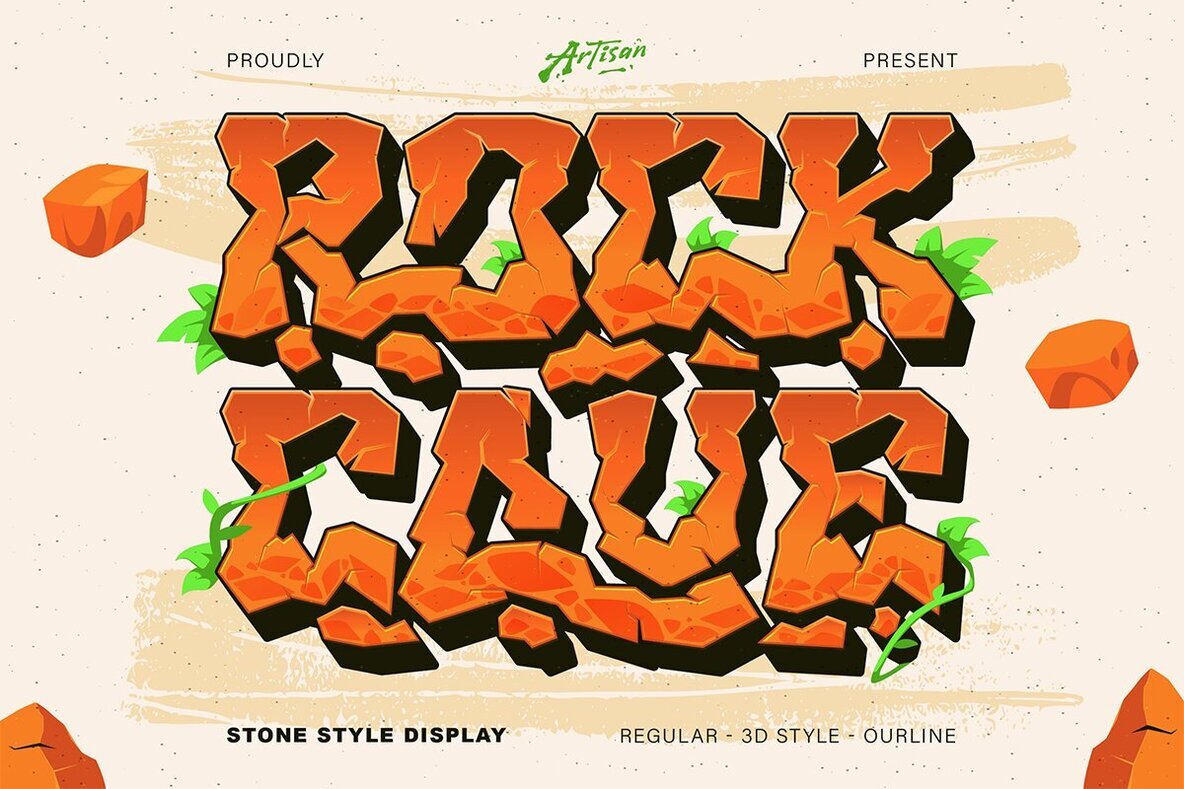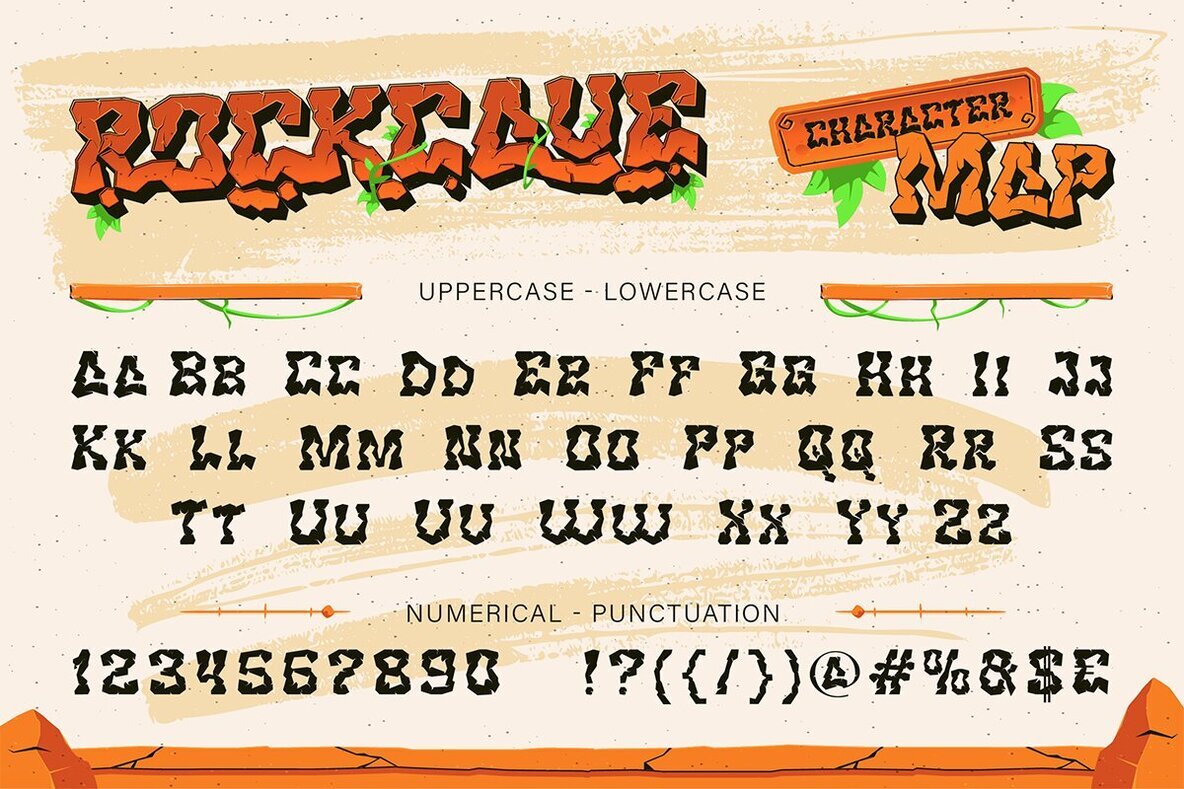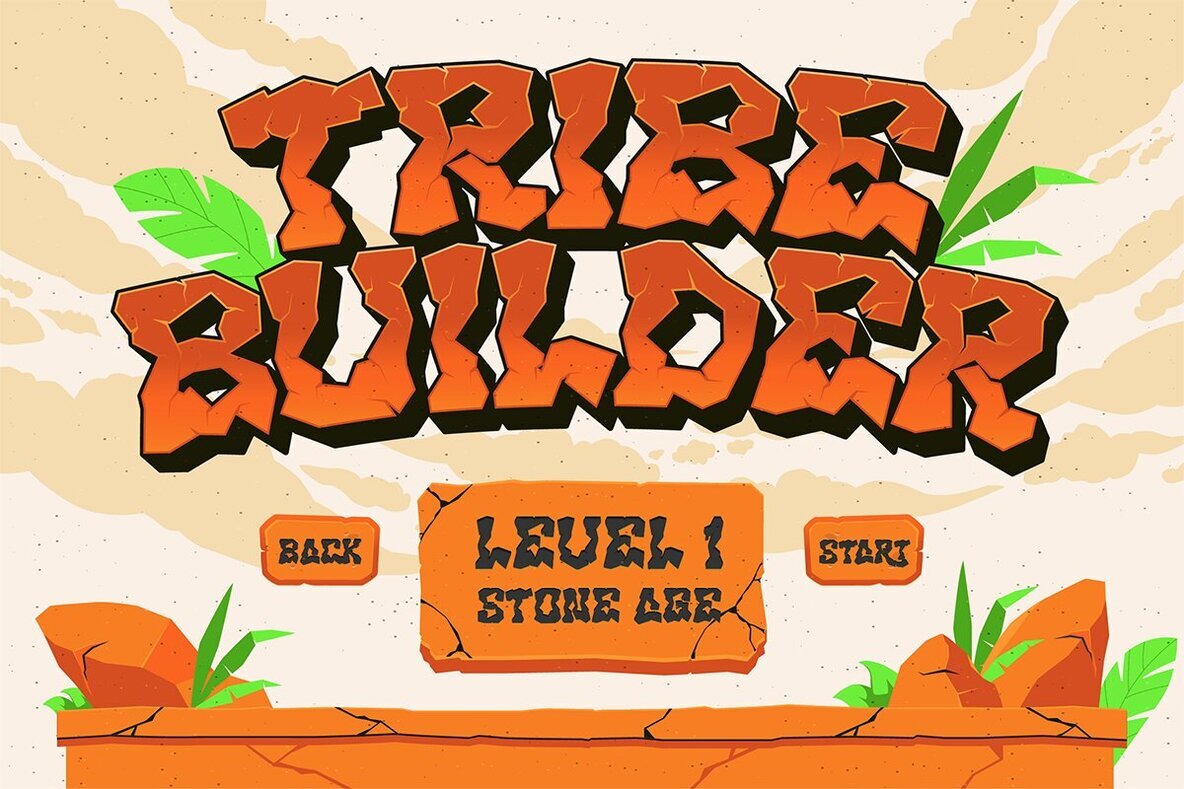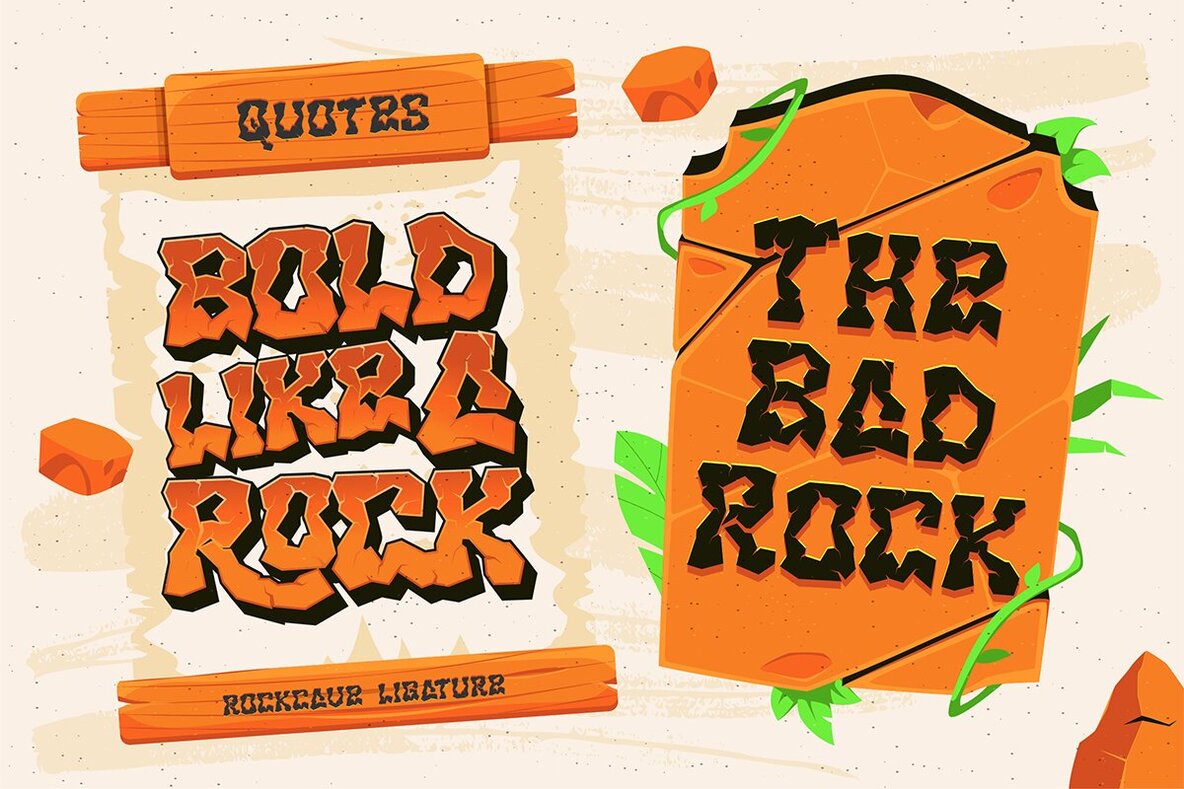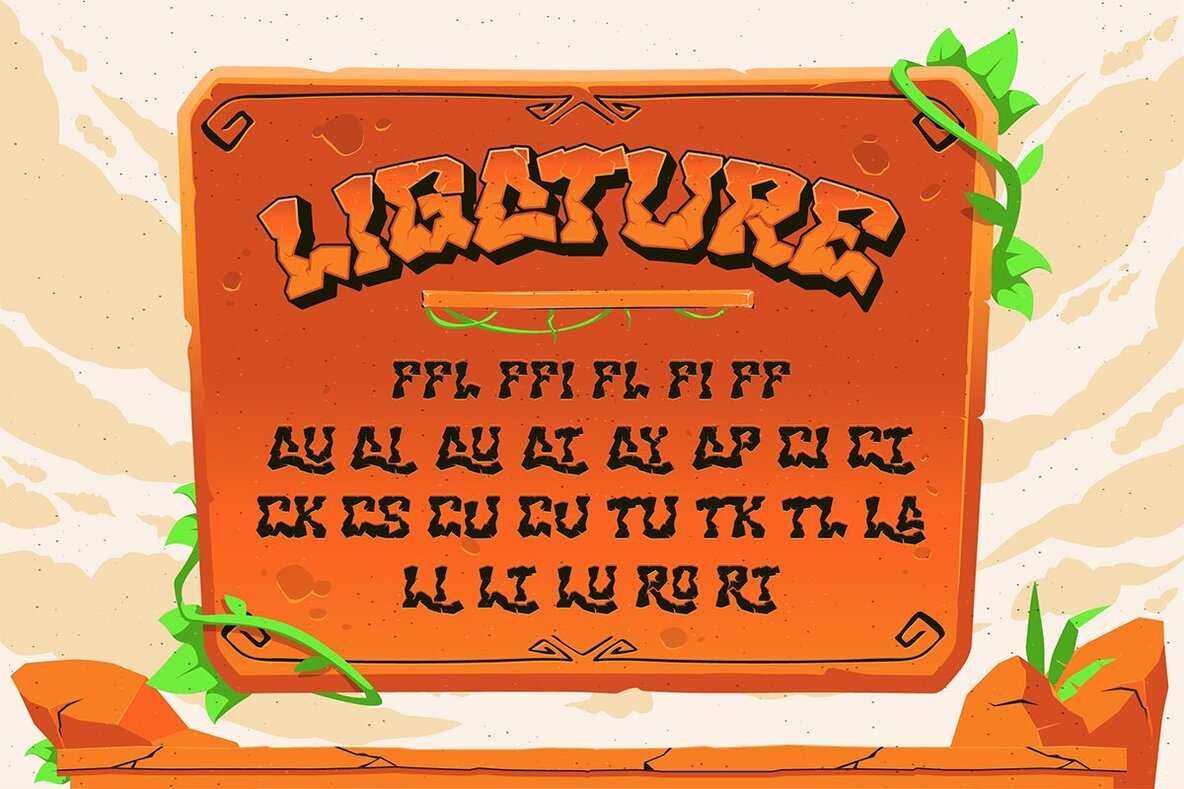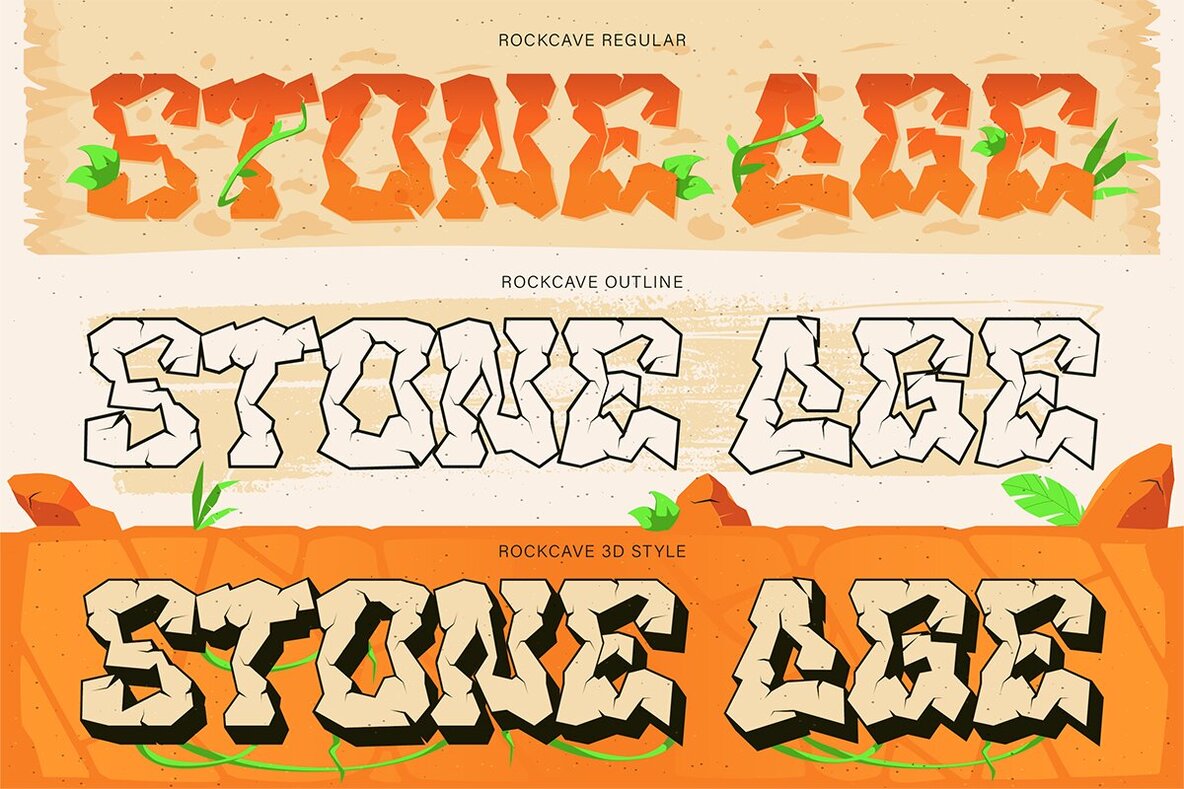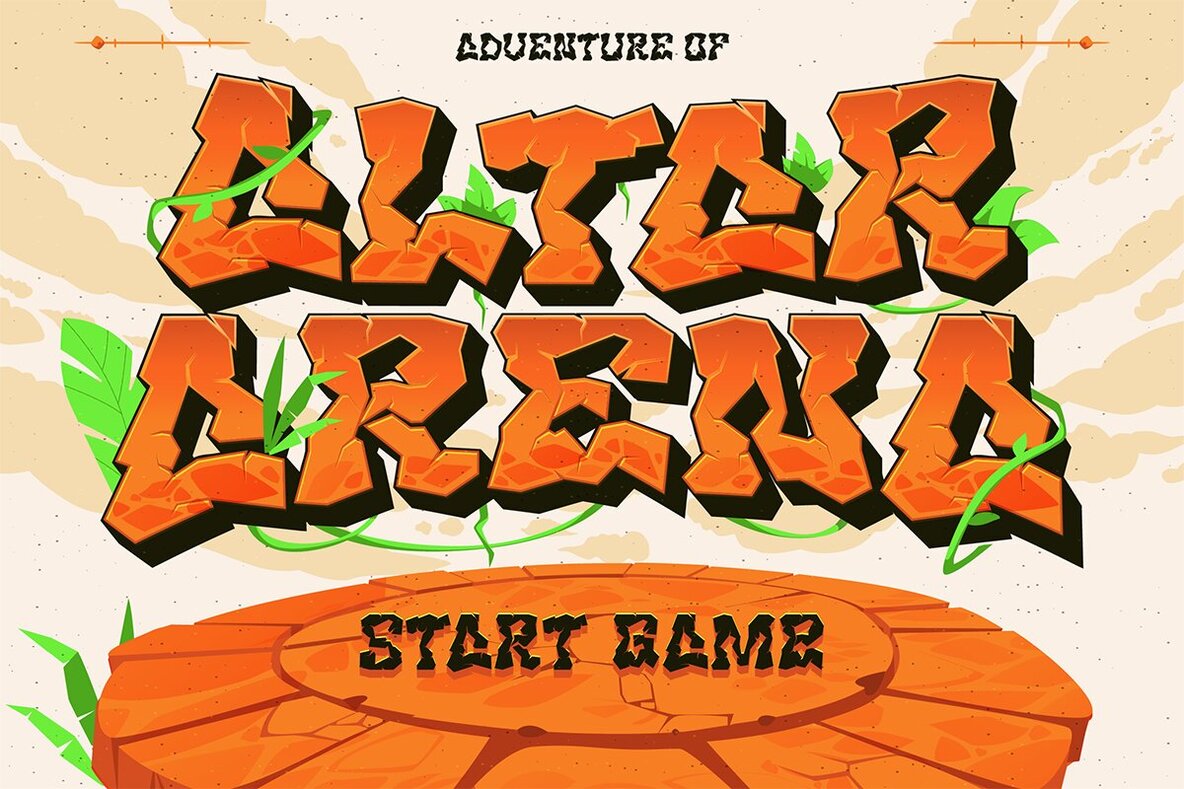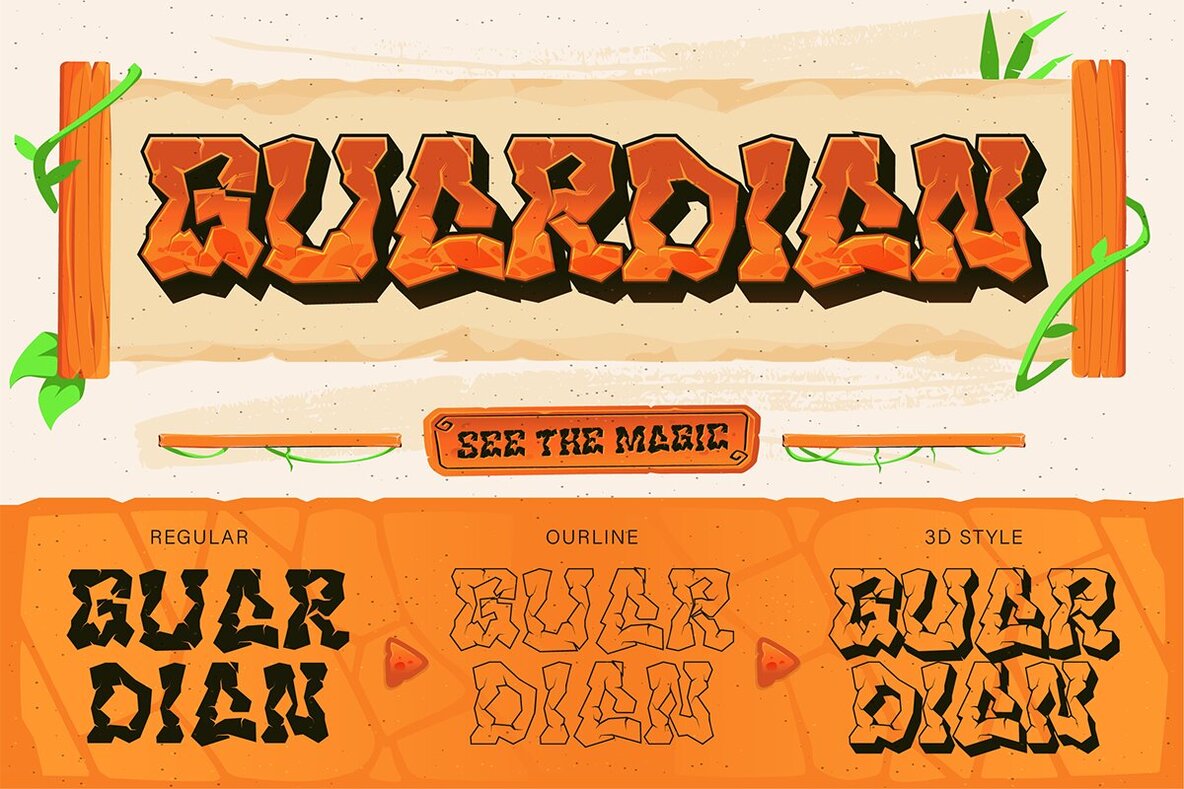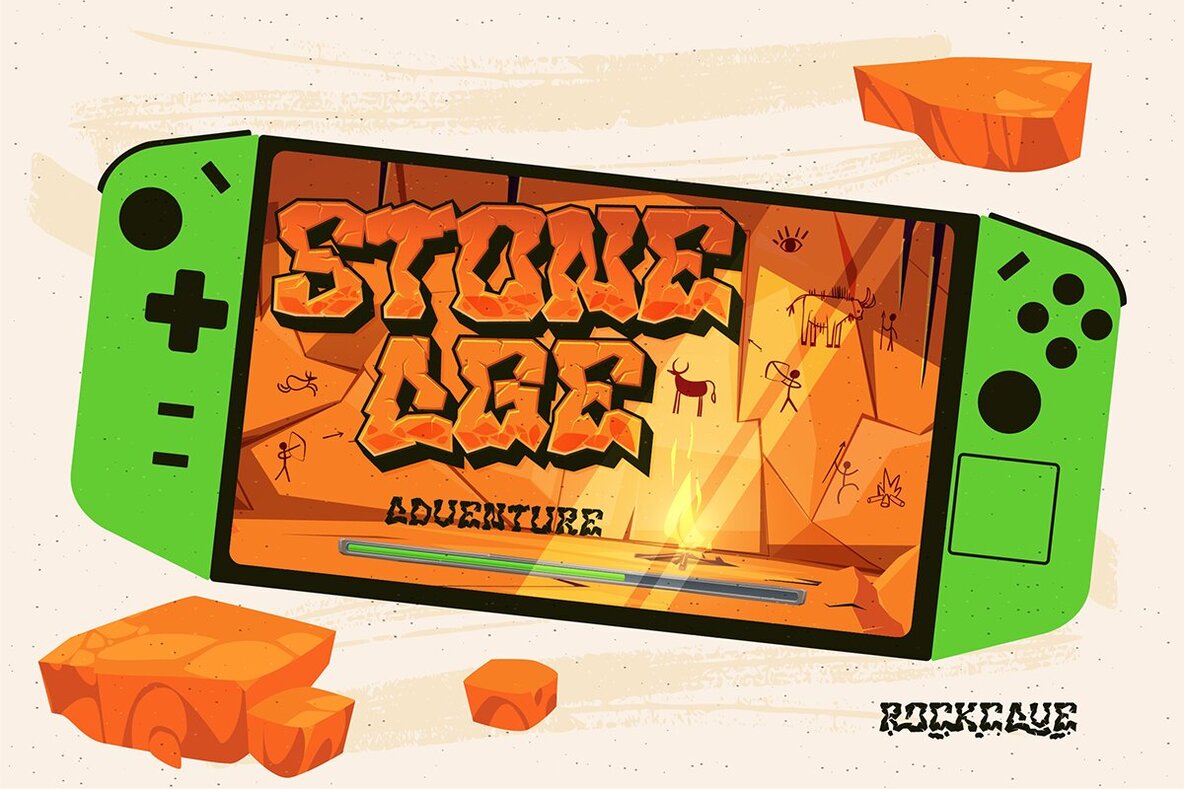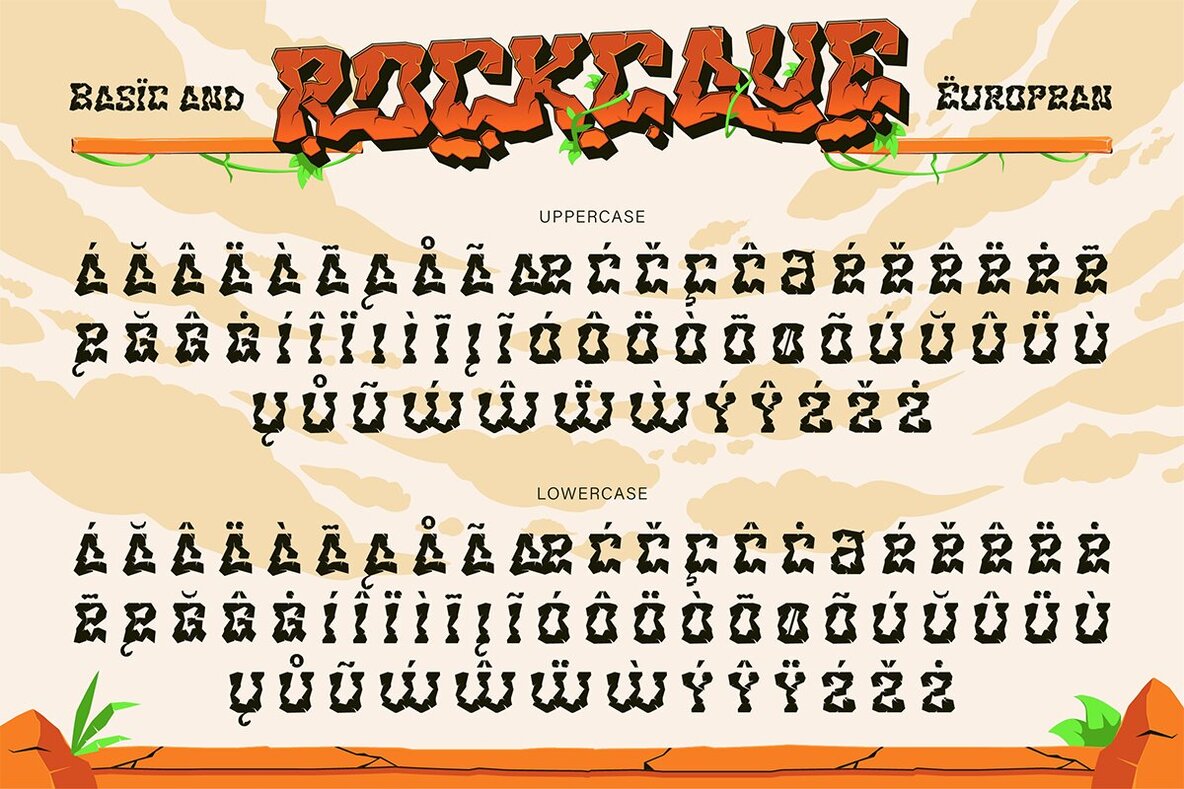
Rockcave Font
Rockcave is a striking display font inspired by the raw textures of stone and ancient cave art. Designed to bring strength and character to your projects, this typeface instantly adds a primal edge. Each letter appears as if hand-carved from rock, delivering an authentic, rugged feel ideal for titles, adventure posters, gaming visuals, and prehistoric themes. Its commanding style offers a confident presence without overwhelming your design. Available in Regular, Outline, and 3D variations, Rockcave lets you layer and combine styles for unique results. The hand-chiseled effect makes each letter stand out, while still maintaining legibility and versatility. Whether you want to highlight strength, adventure, or an ancient narrative, this font captures attention and leaves a lasting impression.Rockcave Display Font: Stone Age Boldness